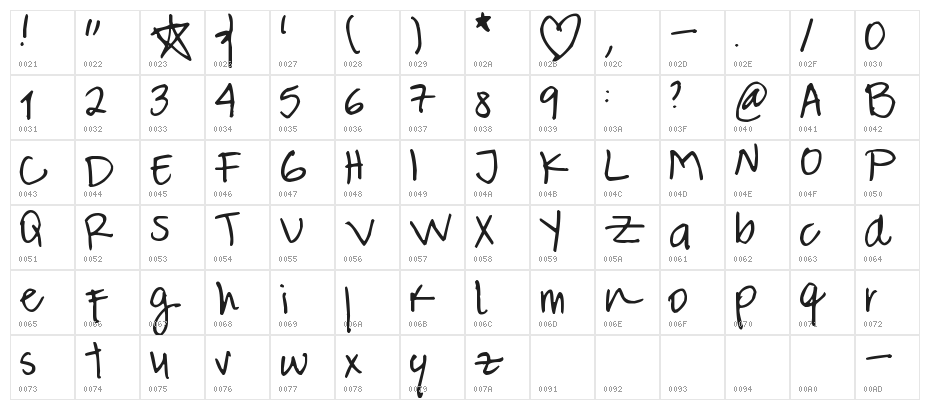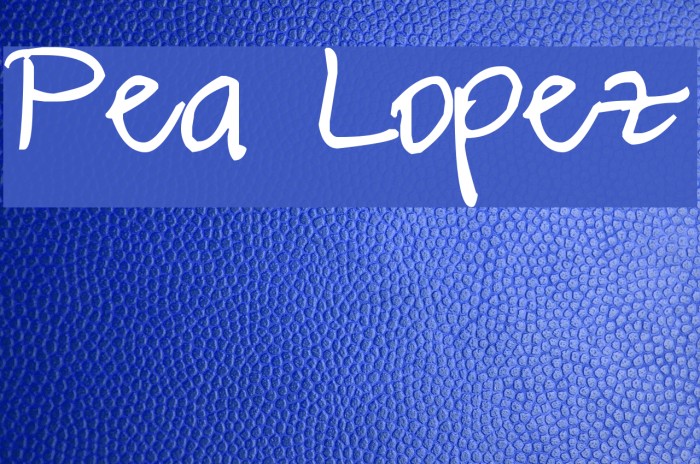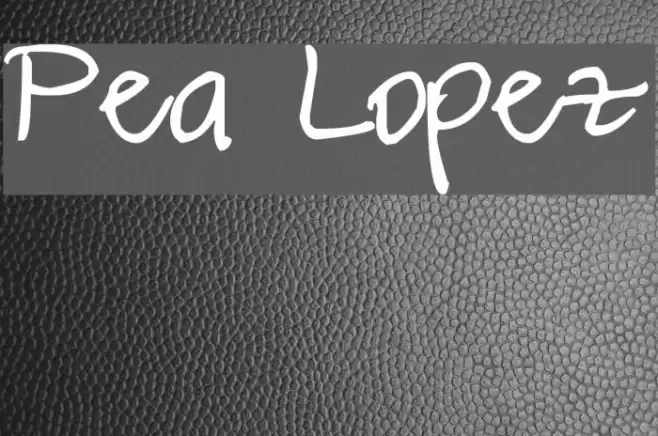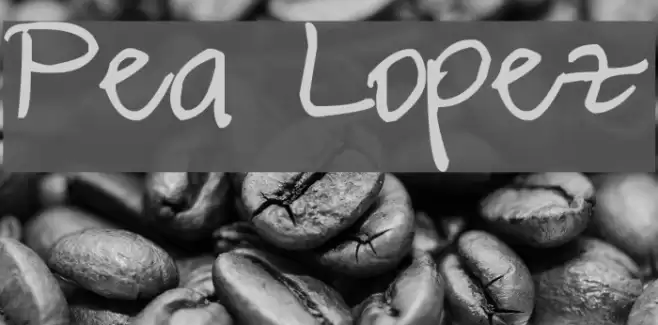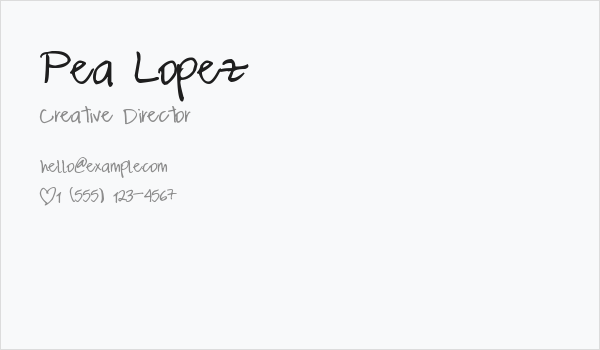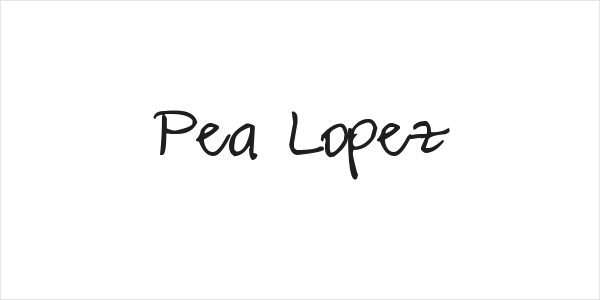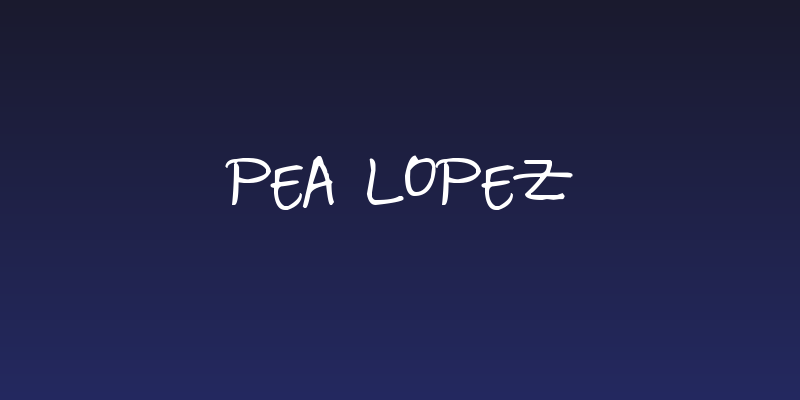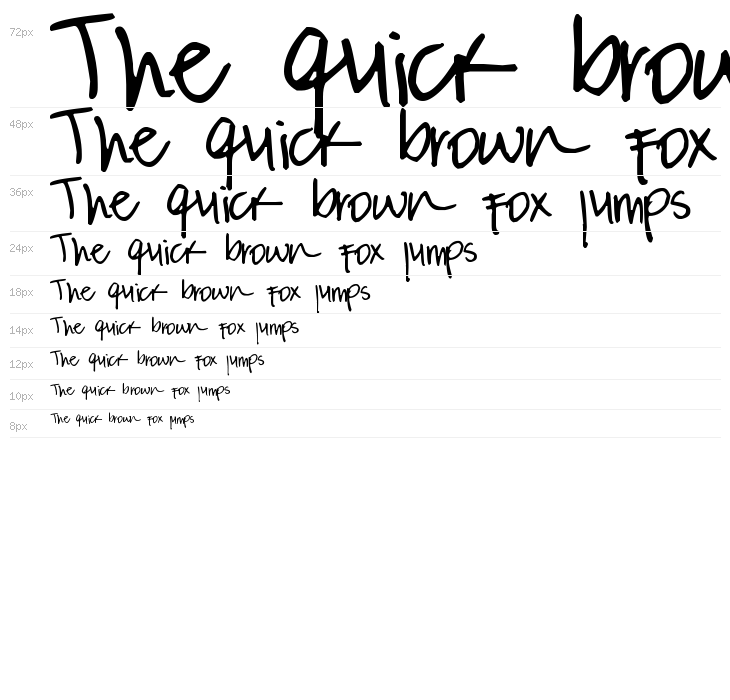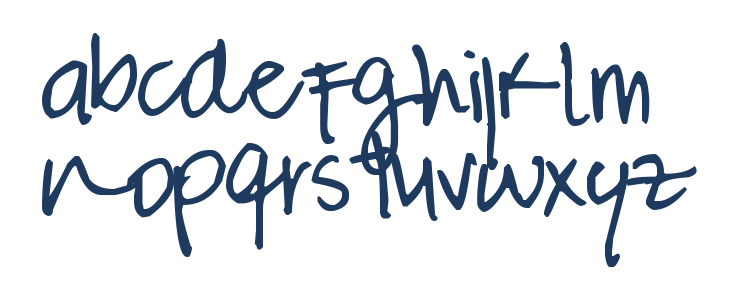
Pea Lopez Font
Pea Lopez Description
This font exudes a playful and casual handwritten style, characterized by its loose, flowing strokes and slightly irregular letterforms. The uppercase and lowercase letters maintain a consistent, informal appearance, with rounded edges and a natural, organic feel. The numbers and special characters complement the alphabet with the same whimsical touch, making it ideal for projects that require a personal, friendly tone. The overall design is approachable and lively, perfect for creative endeavors.
| Proposed Projects | Ideal for greeting cards, children's books, personal blogs, and informal branding. |